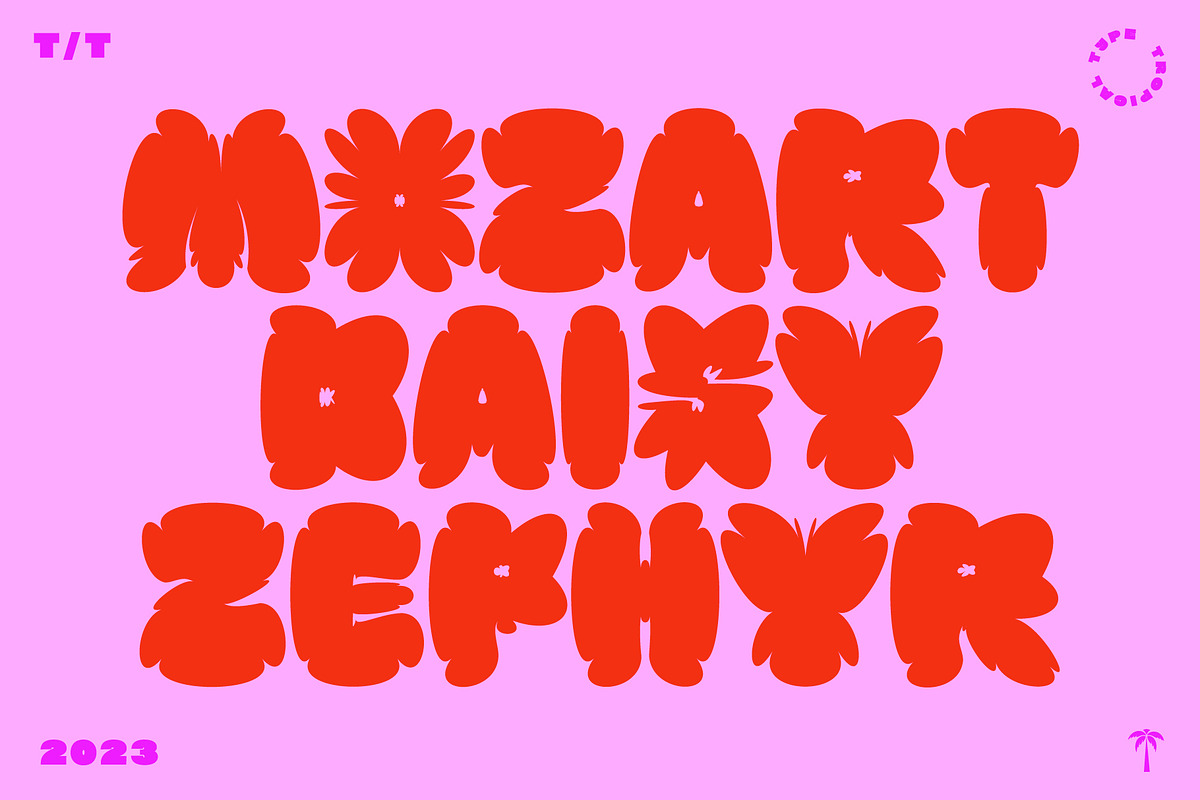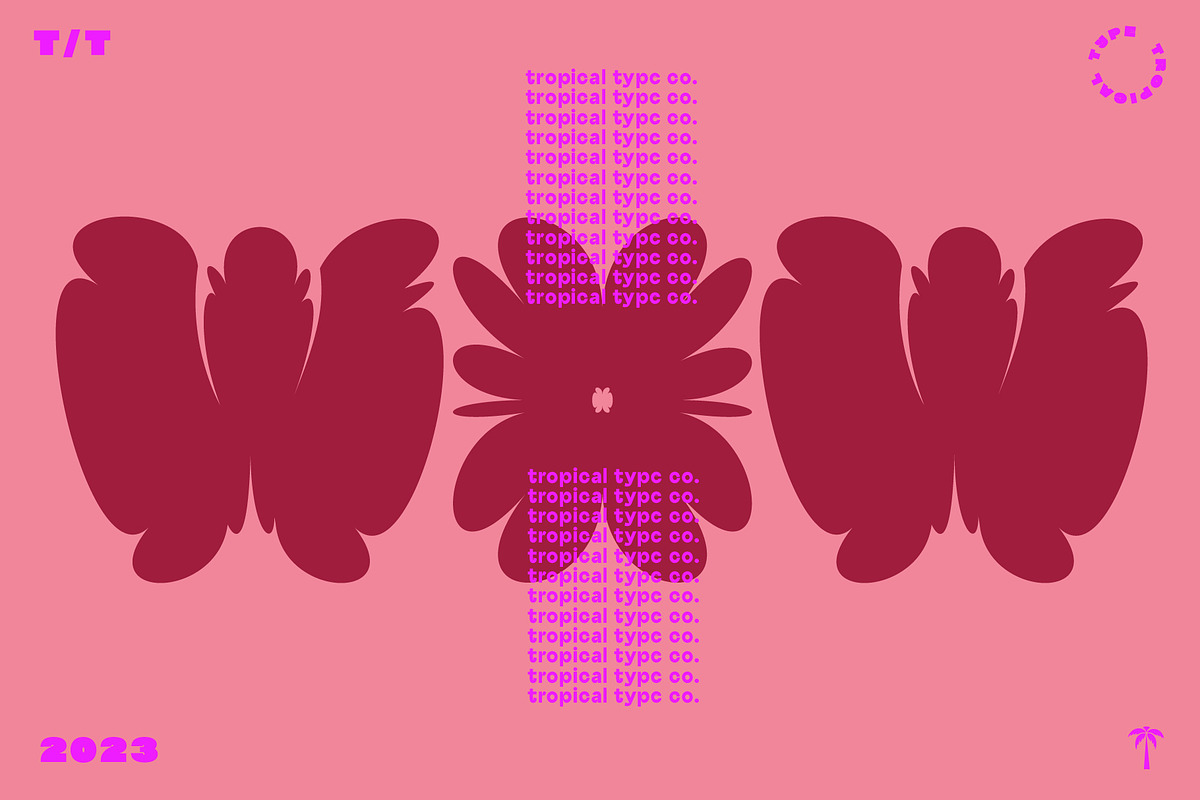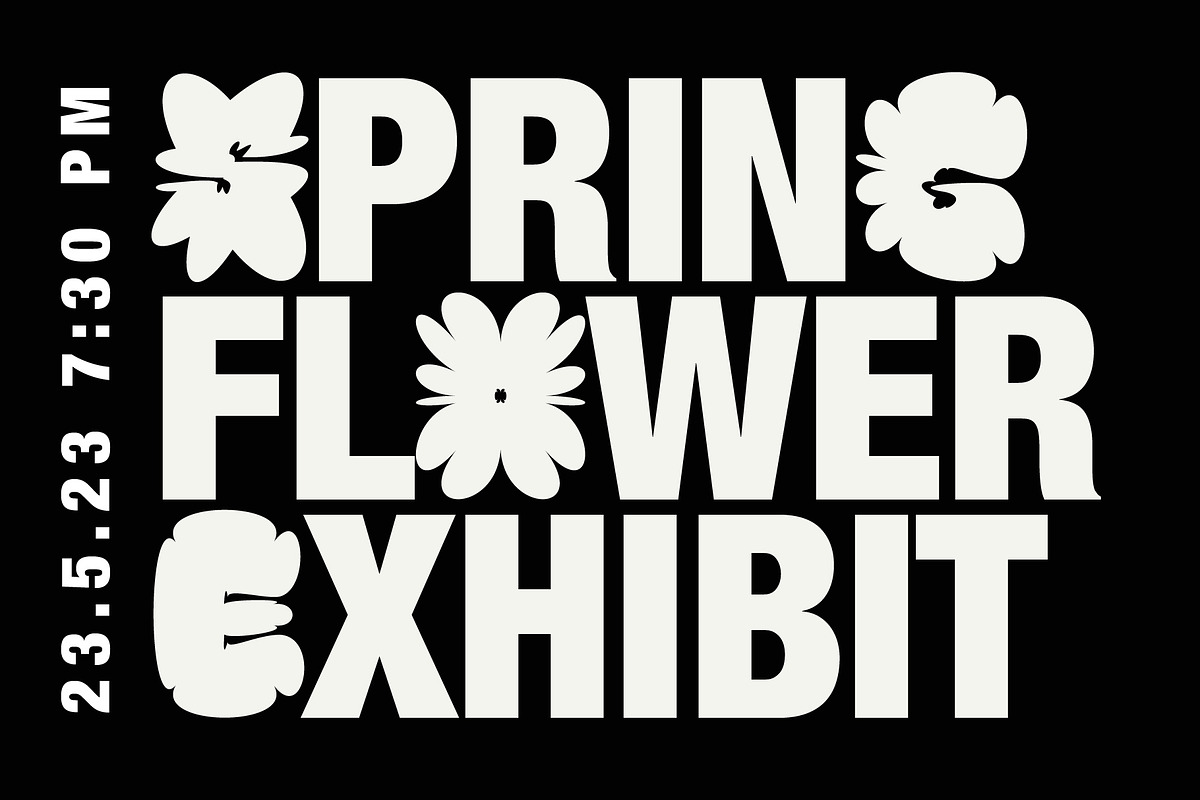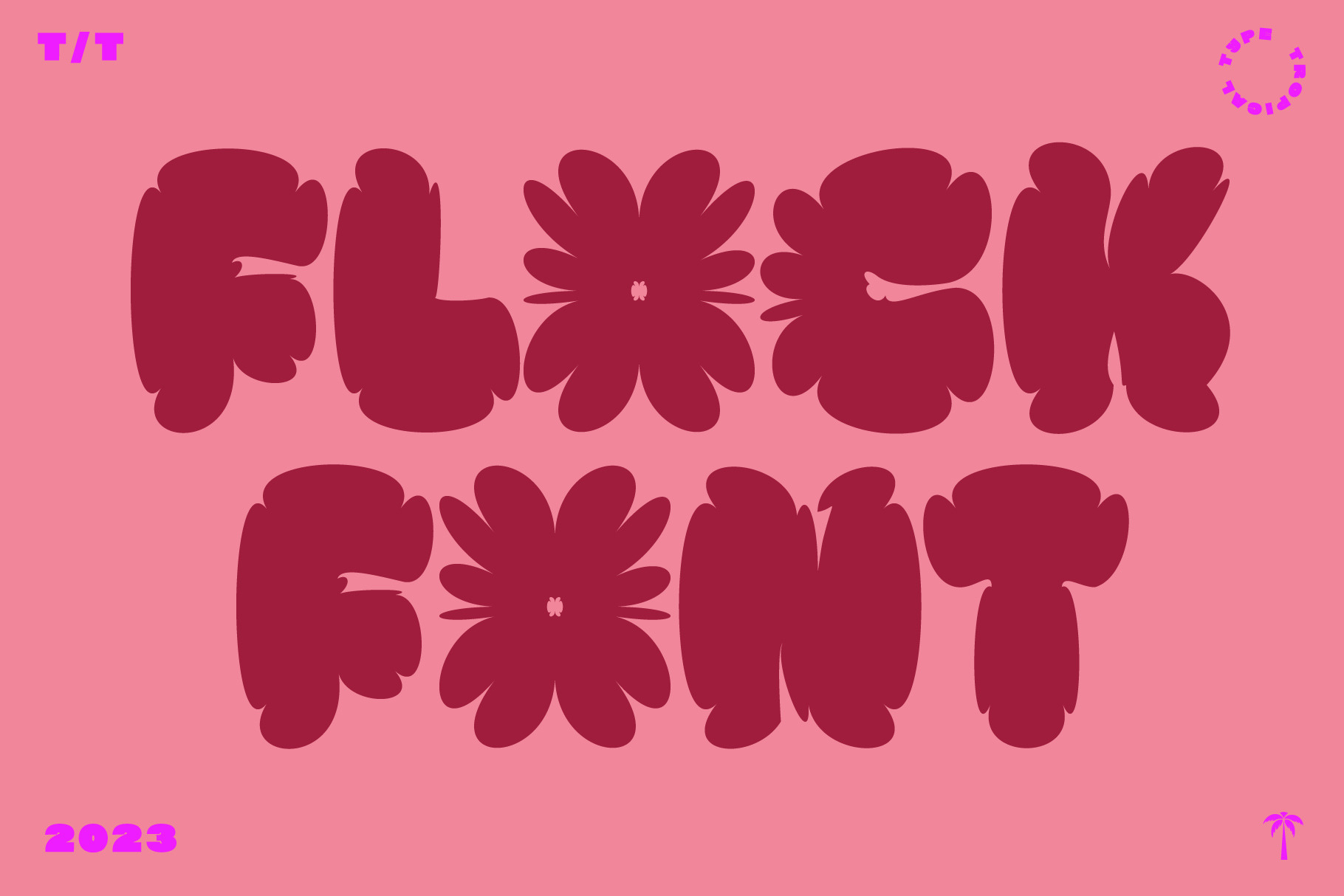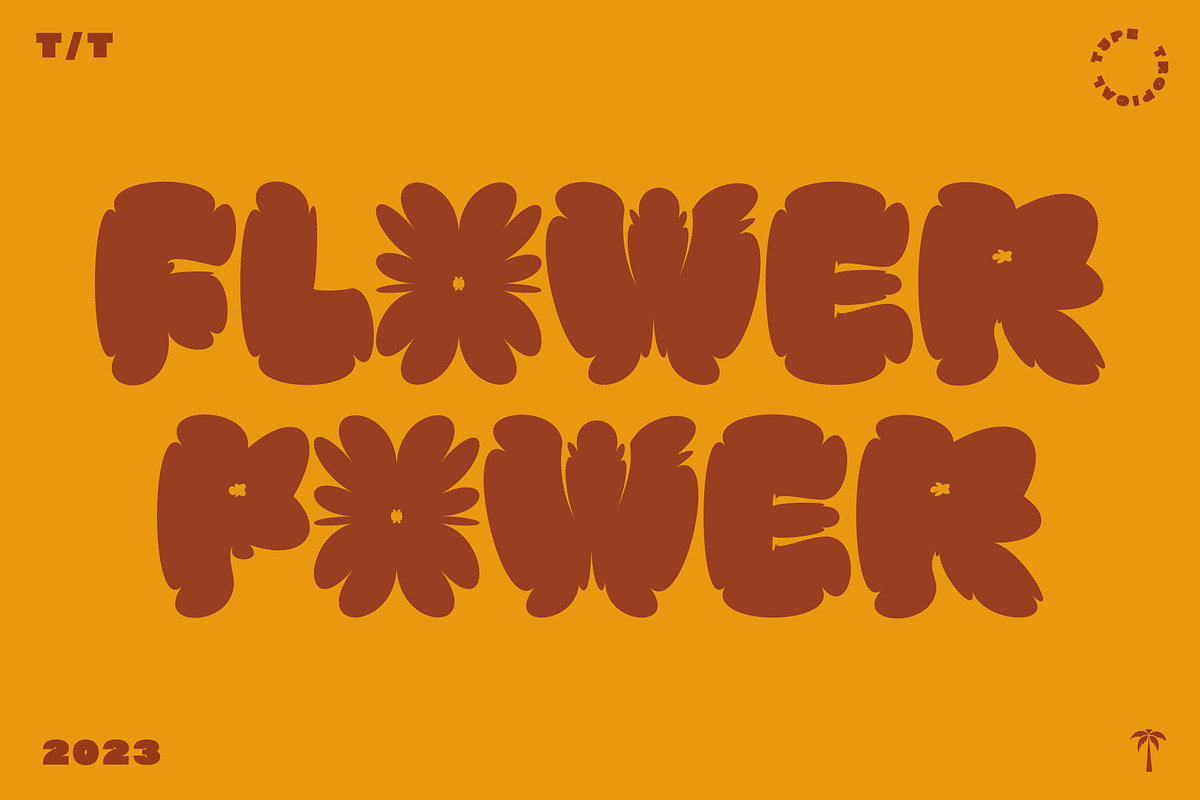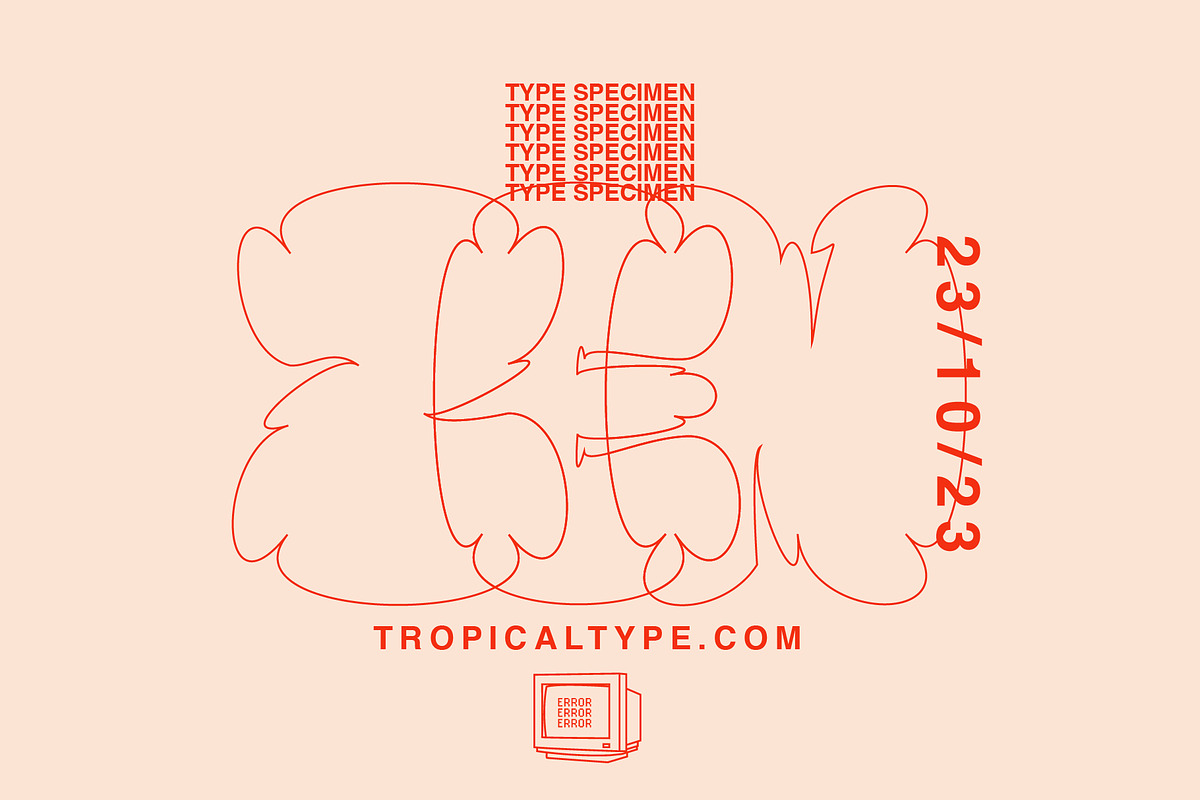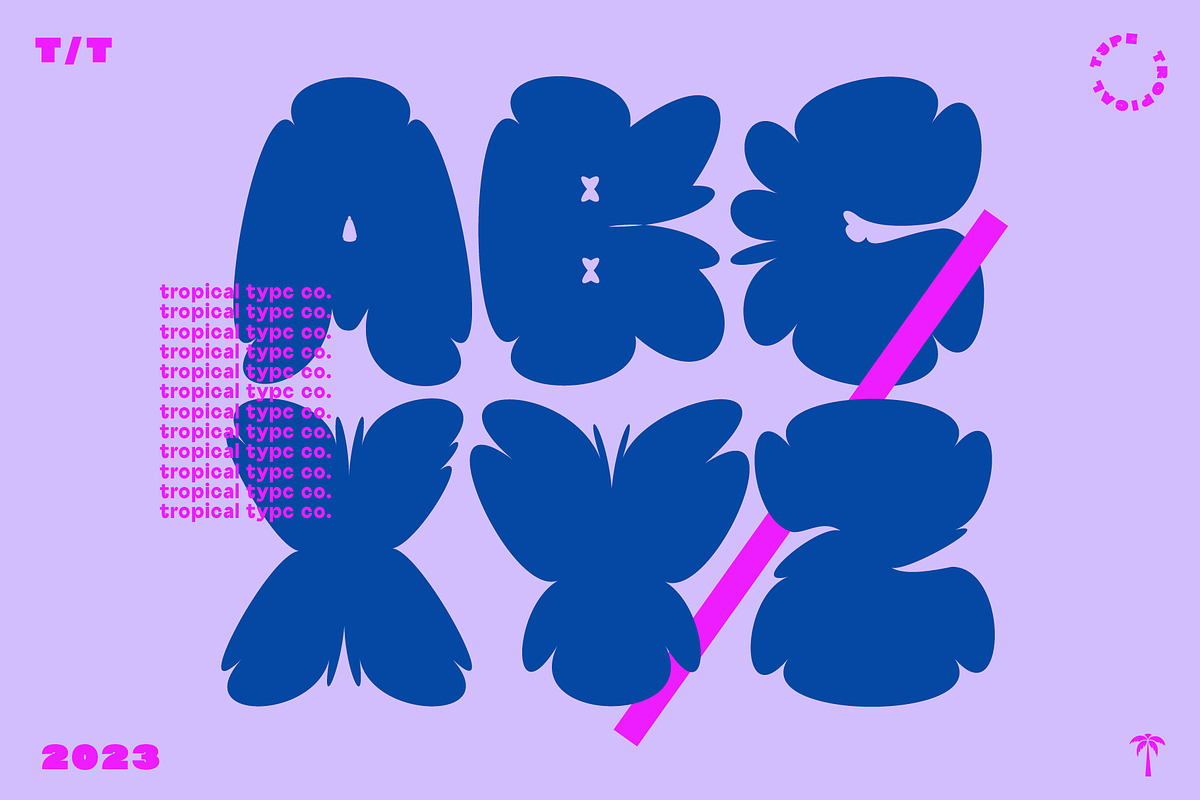
Flock - Bubble Floral Font
Flock is an experimental floral display font. Mix and match it with a chunky serif or just go all out weird!
Regular uppercase and numbers only.